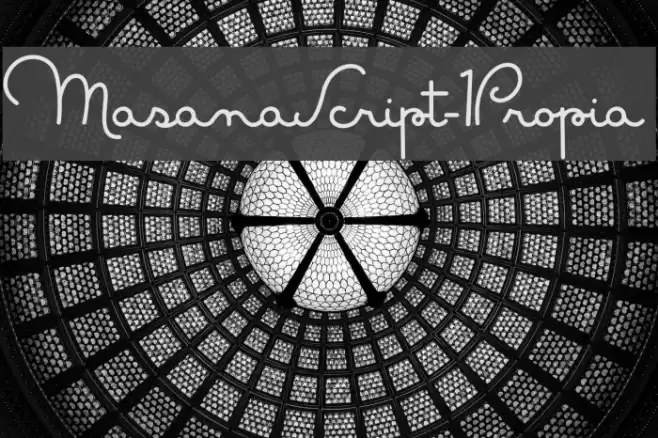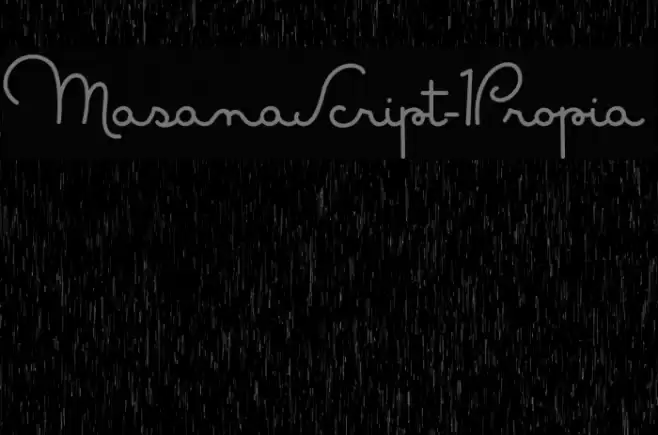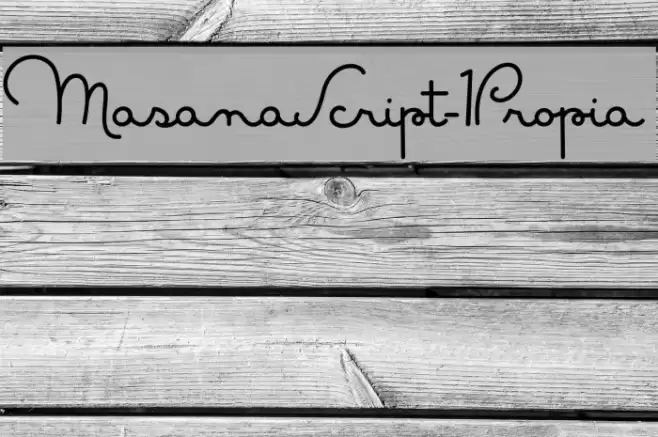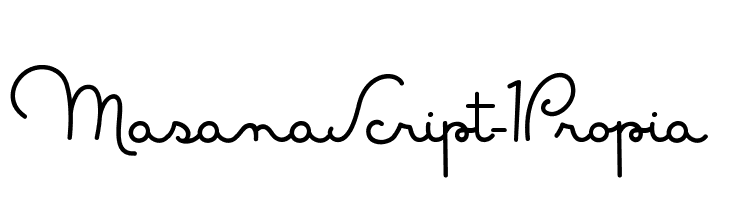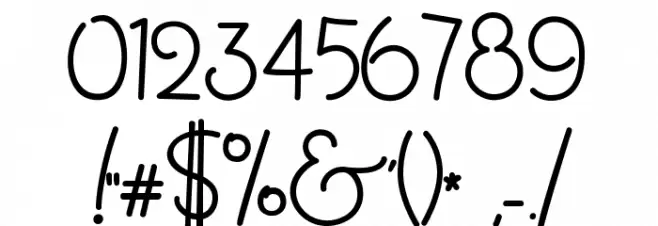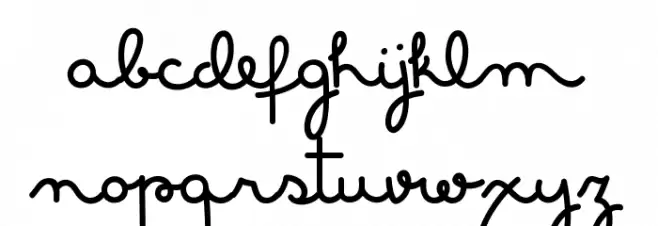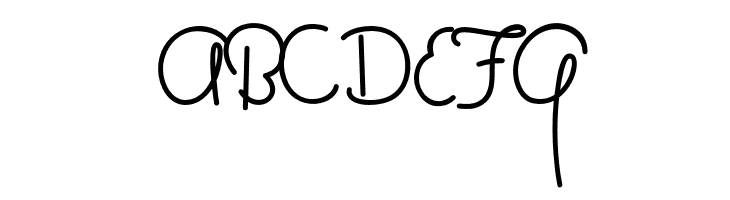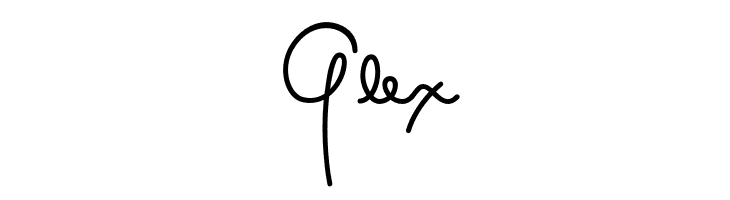
MasanaScript-1Propia Font
MasanaScript-1Propia Description
This font features a playful and whimsical script style, characterized by its flowing, interconnected letters. The uppercase letters are bold and expressive, with unique loops and curves that give them a lively appearance. The lowercase letters maintain a consistent flow, enhancing the font's handwritten feel. Numbers are rounded and maintain the playful aesthetic, while special characters are creatively integrated to match the overall style. This font's distinct personality makes it suitable for projects that require a touch of creativity and fun.
A playful and whimsical script font with flowing, interconnected letters from Uncategorized fonts.
- Proposed Projects: Ideal for greeting cards, invitations, playful branding, and creative posters.
- Use Case: Logos, Invitations, Greeting Cards